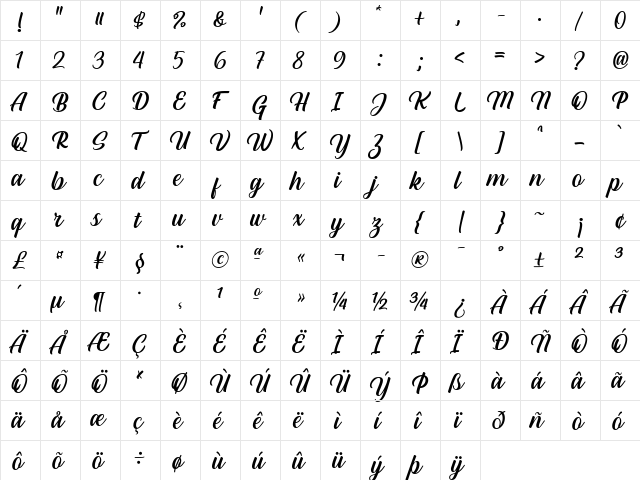
Hestina Regular
| Foundry | 7NTypes |
| Designer | Keithzo; Situjuh Nazara |
Design Context for Hestina Typeface
Hestina is a composed and adaptable typeface that performs quietly and consistently across a wide range of design contexts.